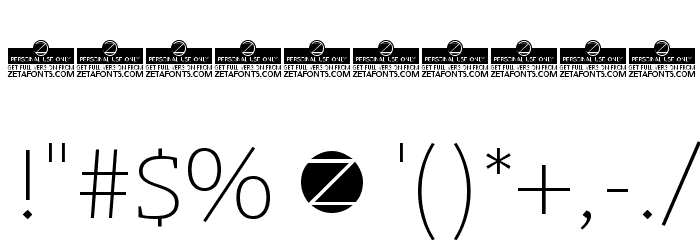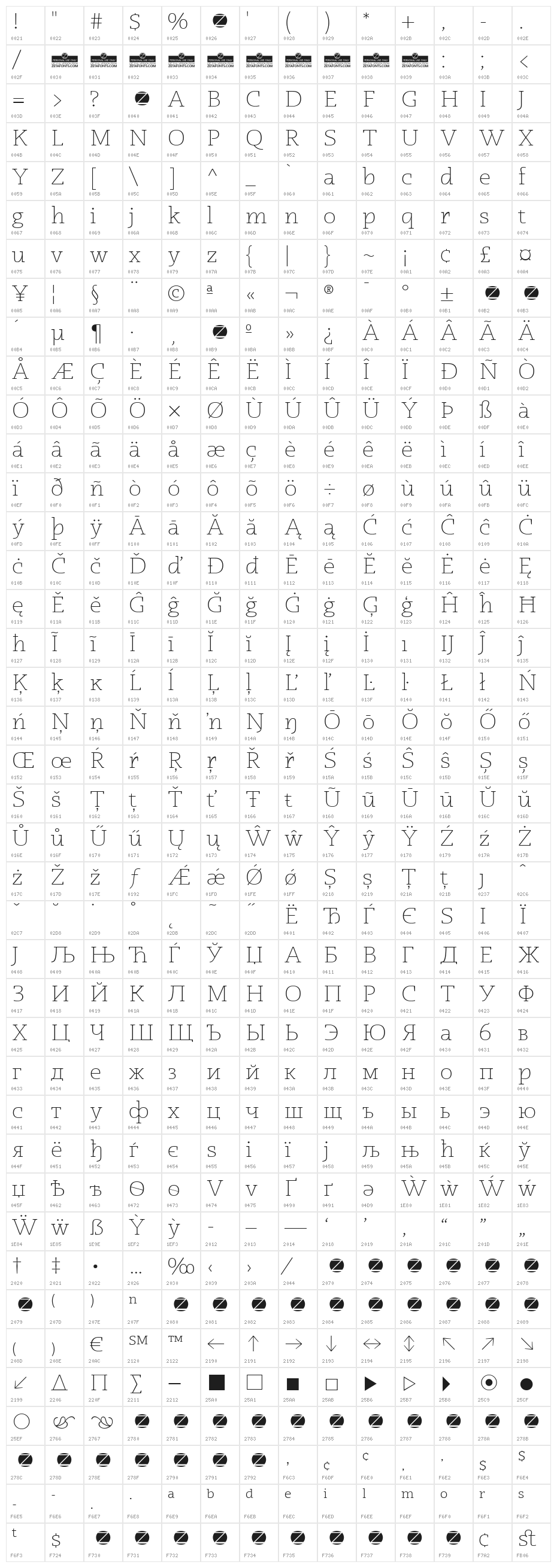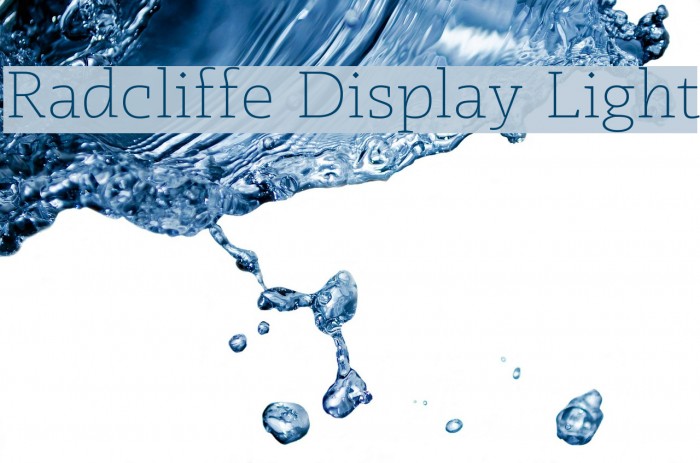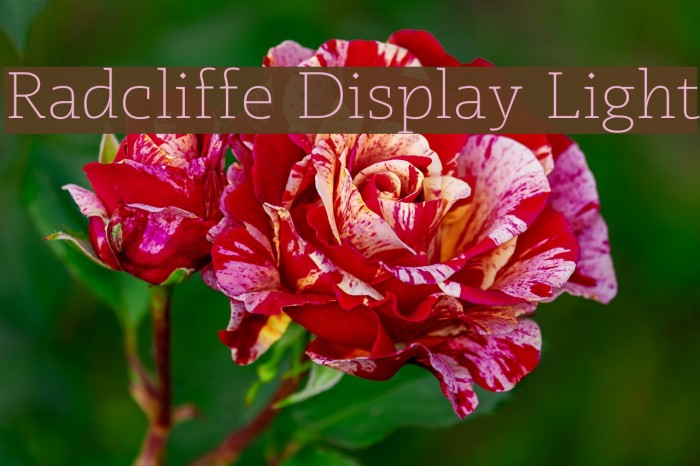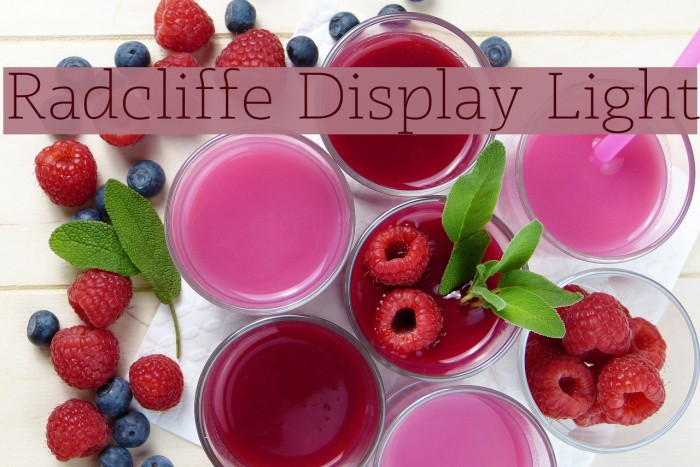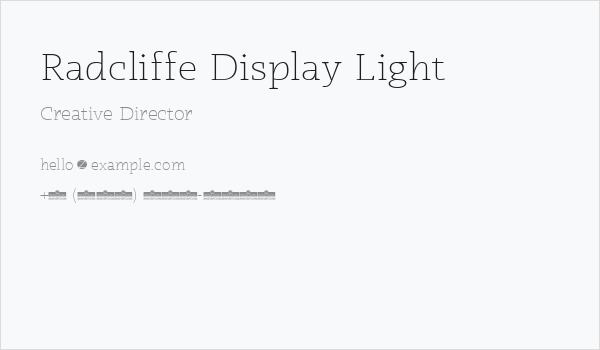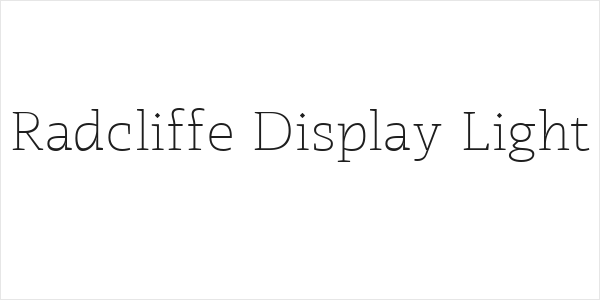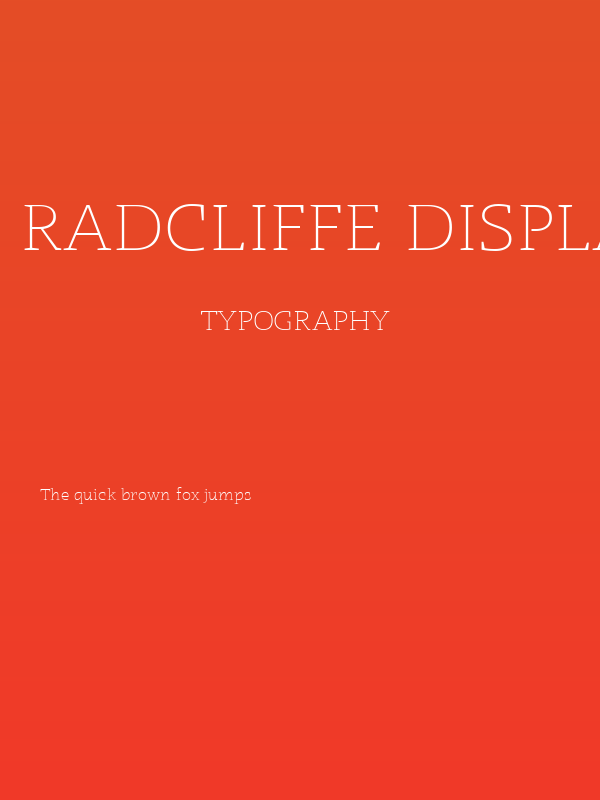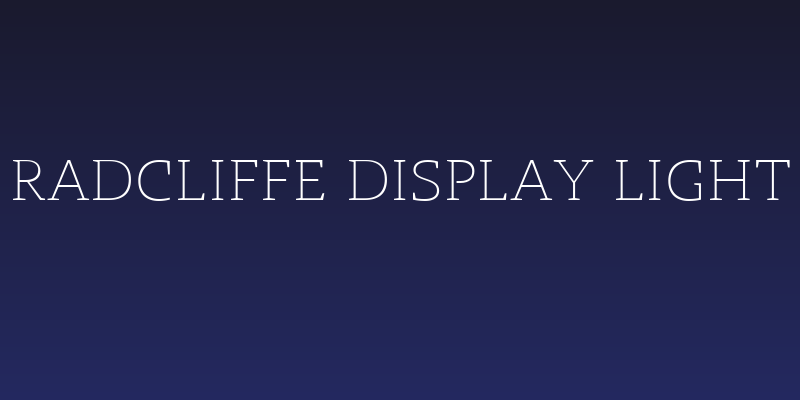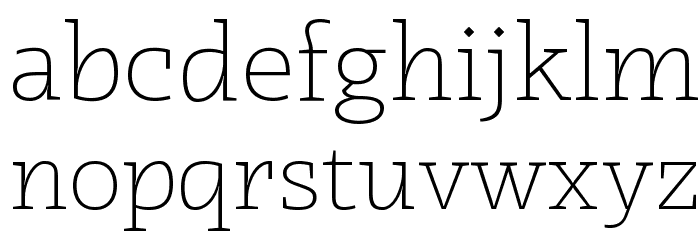
Radcliffe Display Light Font
Radcliffe Display Light Description
This font exhibits a refined and elegant style, characterized by its thin, delicate strokes and clean lines. The uppercase letters are tall and slightly narrow, giving a sophisticated appearance, while the lowercase letters maintain a consistent flow with rounded edges and subtle curves. The numerals are clear and legible, matching the overall aesthetic of the alphabet. Special characters are designed with the same attention to detail, ensuring uniformity across all glyphs. This font's light weight and minimalistic design make it suitable for projects that require a touch of elegance and modernity.